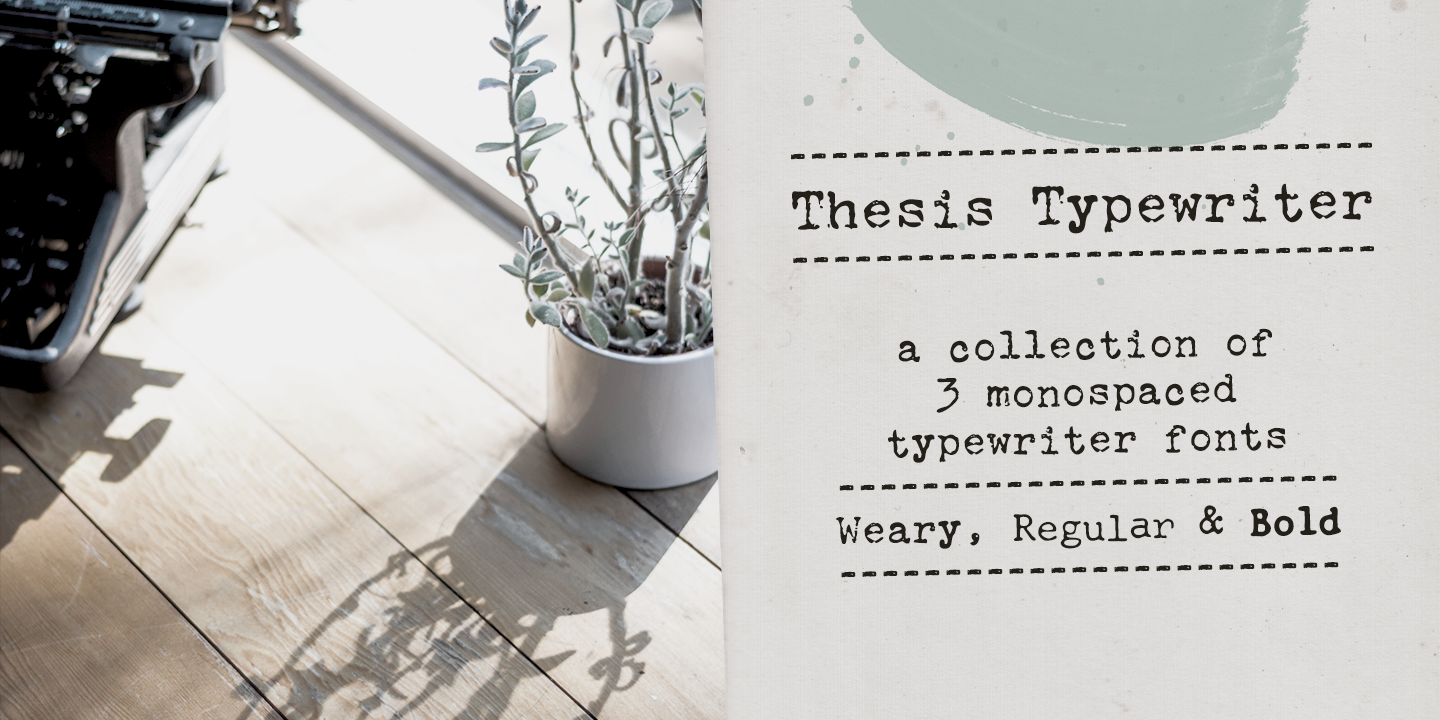
Thesis Typewriter Font demonstrates exceptional authenticity across vintage-inspired design applications including retro brand identity, academic publications, manuscript layouts, vintage packaging design, historical document recreation, literary magazine layouts, coffee shop menus, vintage poster designs, nostalgic marketing materials, editorial typography, creative writing projects, and authentic vintage communications. This distinctive typeface delivers outstanding character in both digital and print environments, making it the perfect choice for brands and designers who need to convey authenticity, nostalgia, and intellectual credibility in their visual communications.
What makes Thesis Typewriter Font Free Download truly exciting is its authentic reproduction of classic typewriter aesthetics combined with modern digital functionality that creates an instantly recognizable vintage appeal. The font features meticulously crafted letterforms with characteristic typewriter imperfections, monospaced proportions, and authentic mechanical details that capture the essence of traditional typewriter output while maintaining excellent readability across contemporary applications. Its nostalgic aesthetic incorporates genuine vintage design elements and careful spacing that make it ideal for both academic communications and creative projects seeking authentic retro character. The font's distinctive personality transforms modern content into compelling vintage-style communications that resonate with audiences appreciating classic typography.
The Thesis Typewriter Font family typically includes multiple weight variations such as light, regular, bold, and potentially distressed versions, often featuring alternate characters, vintage elements, and authentic typewriter characteristics that enhance its nostalgic appeal. Each style maintains the core vintage design philosophy while offering different levels of visual impact and typographic expression. The comprehensive character set supports various languages and includes essential punctuation marks, numerals, and special symbols typical of traditional typewriters, ensuring designers have complete flexibility to create authentic vintage typographic compositions that maintain historical accuracy across diverse retro-themed projects.
Whether you're developing vintage brand identity, creating nostalgic marketing materials, or designing academic publications, Thesis Typewriter Font Free Download provides the typographic authenticity necessary for producing memorable and historically-inspired designs. Its vintage character and versatile nature make it an essential addition to any designer's font collection, offering unlimited creative possibilities while maintaining the highest standards of historical accuracy, nostalgic appeal, and visual authenticity in today's design landscape that values genuine vintage aesthetics.